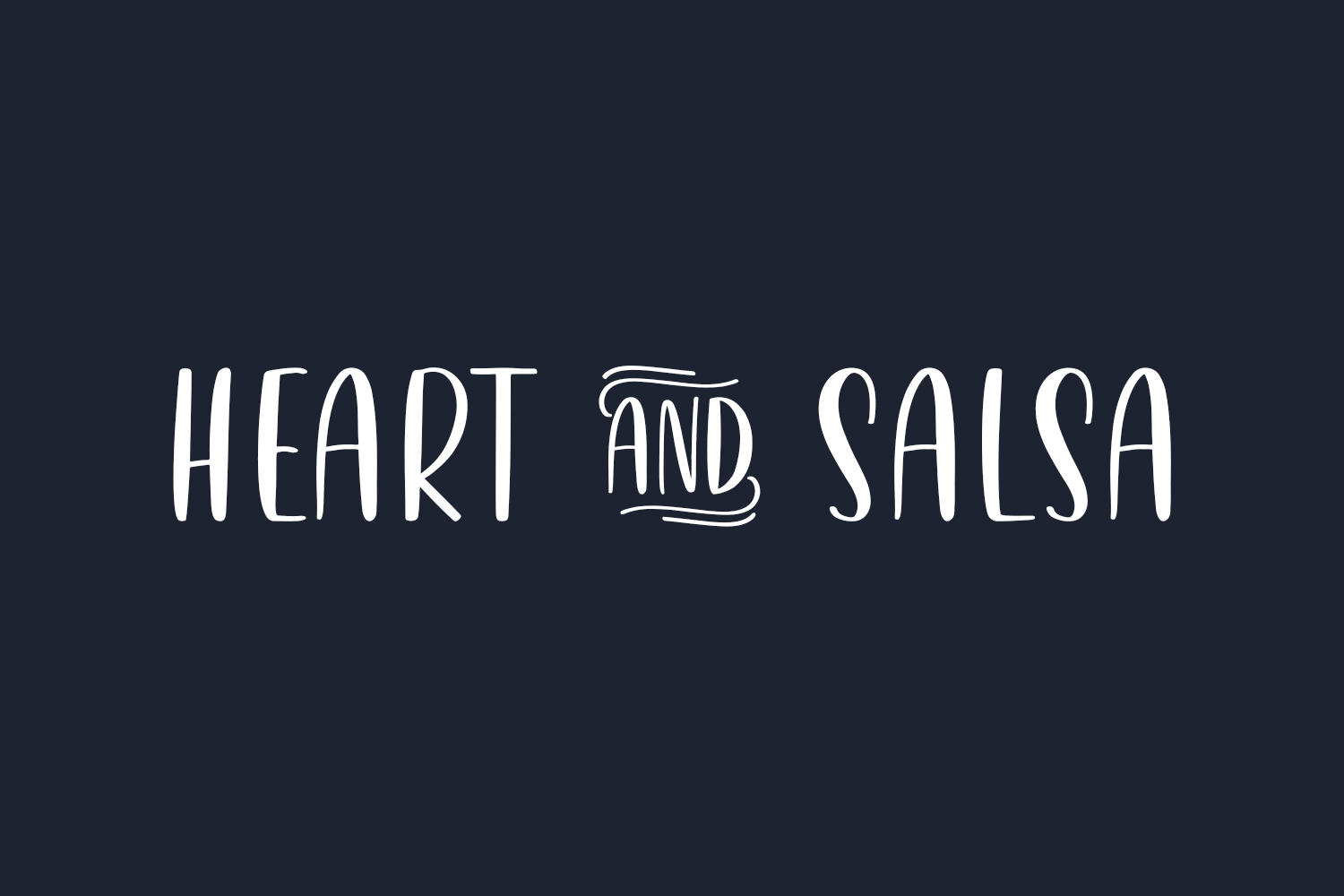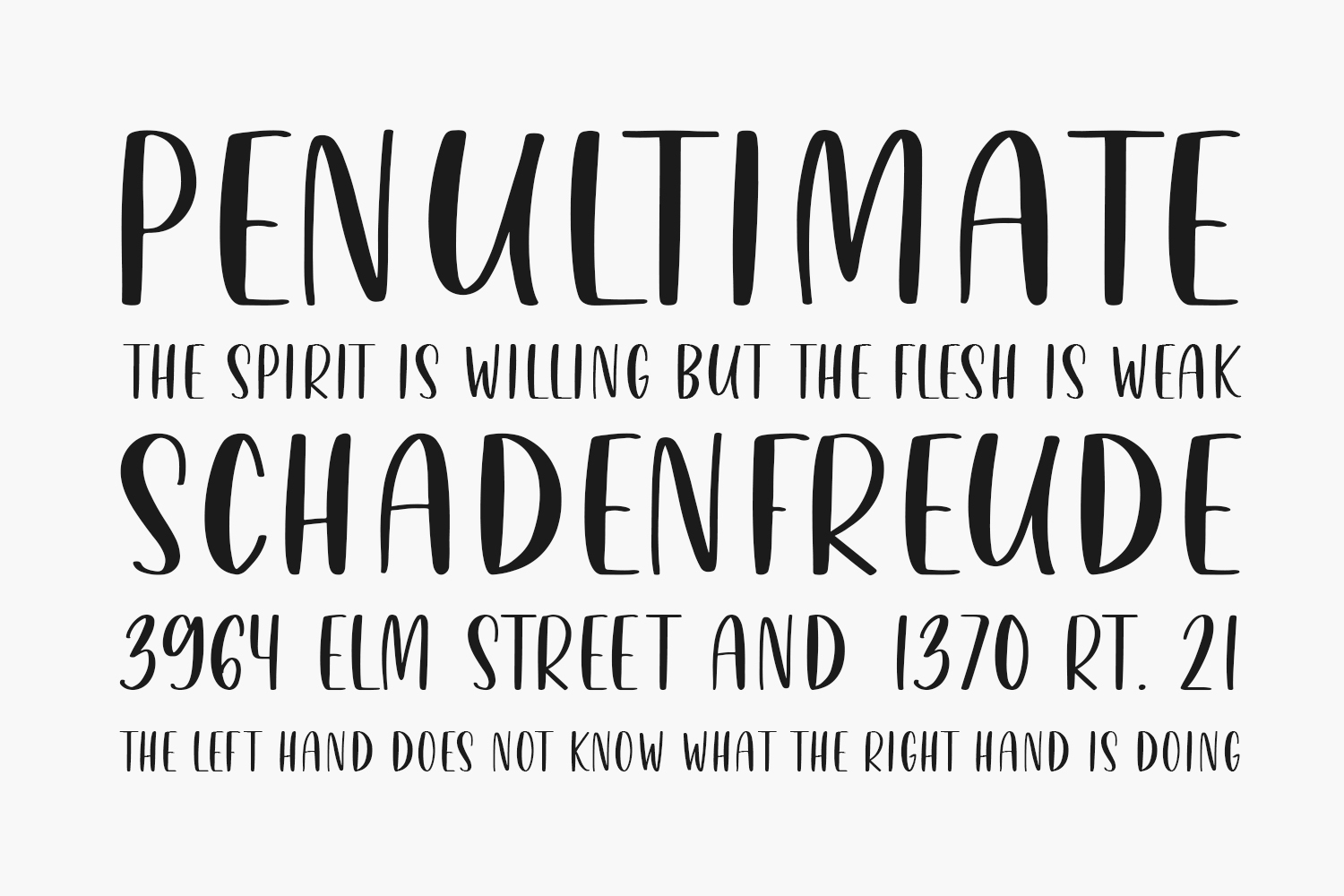
Heart & Salsa Free Font is a laid-back, friendly handwritten font that emanates joy and cheerfulness. No matter the topic, this font will be an incredible asset to your fonts’ library, as it has the potential to elevate any creation. Heart & Salsa Free Font was designed by Fikryal studio and is free for personal use only. Please purchase the full version for commercial use.